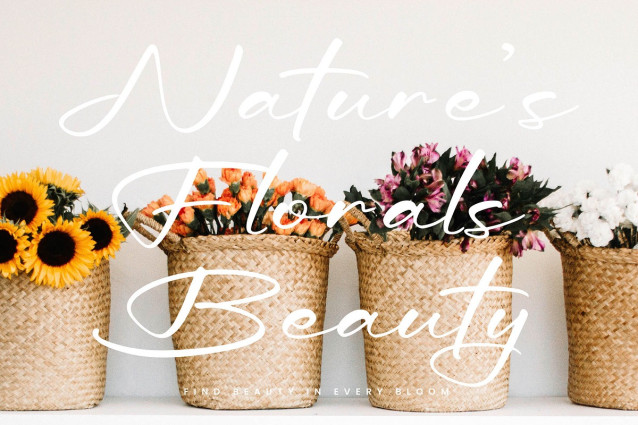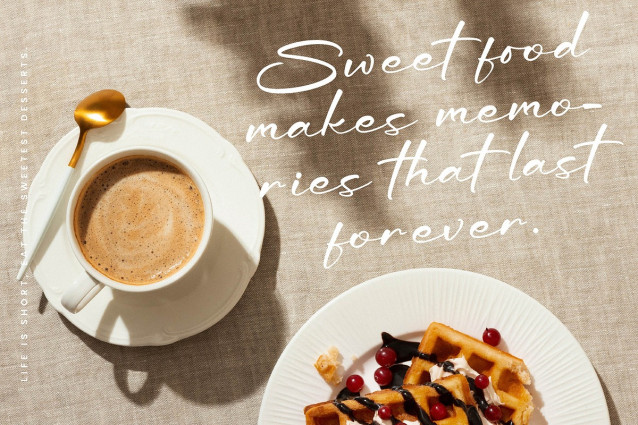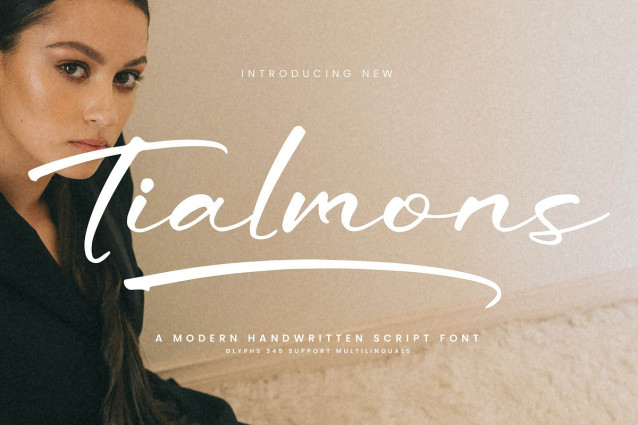
Tialmons Script Font
Tialmons Script Font – A Modern Handwritten Script Font, from Integritype Studio, perfect for any project like: logos, branding projects, homewares designs, product packaging, mugs, quotes, posters, shopping bags, t-shirts, covers books, business cards, invitation cards, greeting cards, labels, photography, watermarks, special events and all your other luxury projects that require a premium taste.